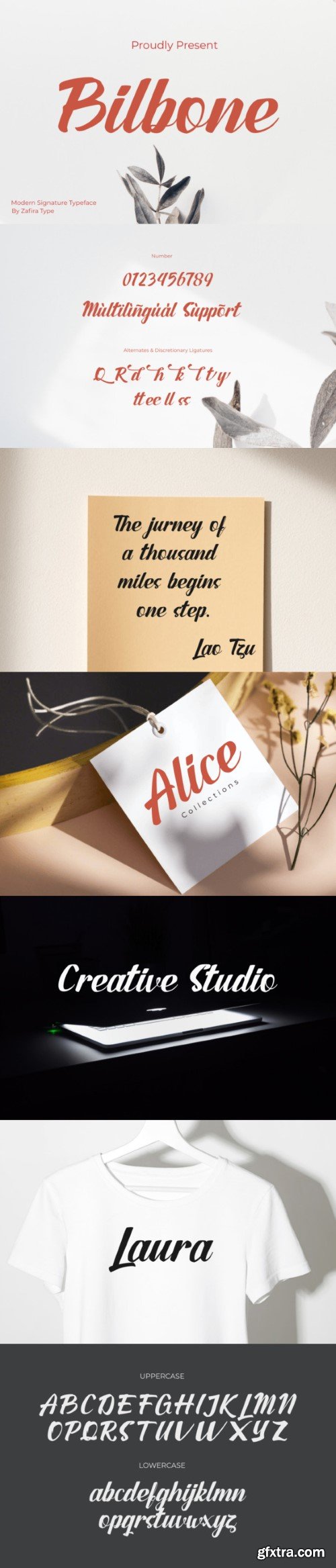
毕罗本字体
Bilbone Script is a hand-lettered script font. It has a bold and smooth style and is perfect for making any design stand out. Best suitable for branding, packaging, print titles, t-shirt design, food design, and similar projects.